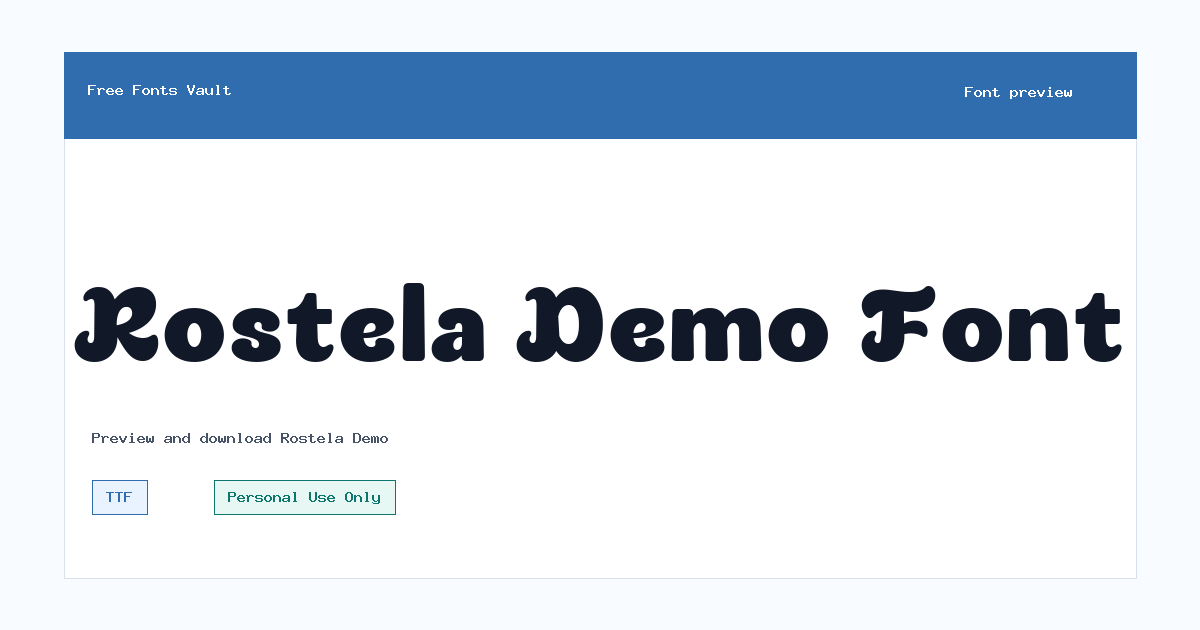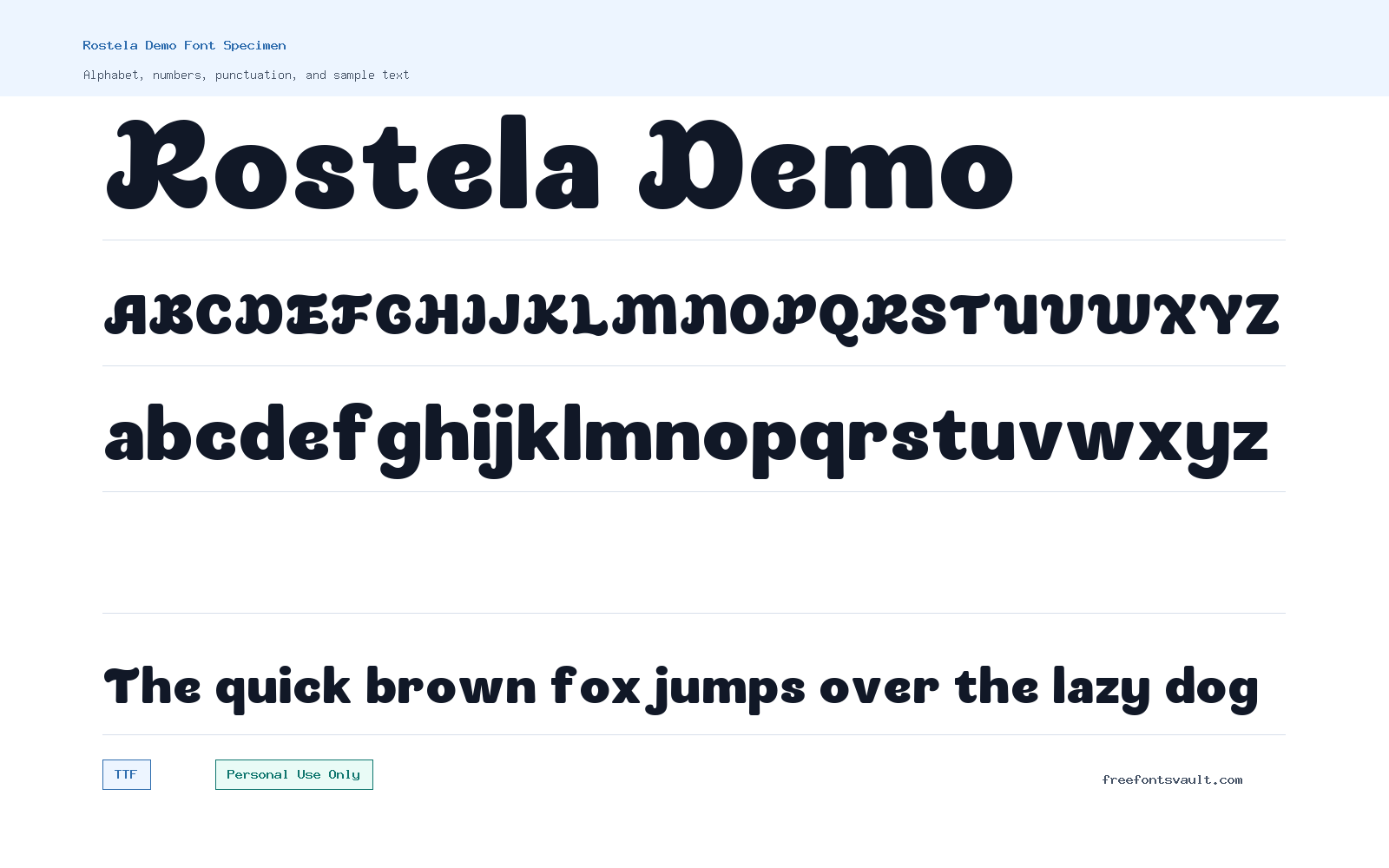
Rostela Demo
- Designer Ragamkata Studio
Rostela Demo font.
Rostela Demo is a display font with a decorative look suited to short, eye-catching text. It works best when you want a title, logo draft, poster heading, or branding mockup to feel more distinctive than a standard sans or serif.
About Rostela Demo
Rostela Demo is best treated as a headline and display typeface rather than an everyday reading font. The regular TTF file gives designers a simple way to test the typeface in design software, font preview tools, and mockup layouts. Because the available style is regular weight, the font is most useful when the letter shapes themselves carry the visual character. Use it for words that need to stand apart: a brand name, an event title, a packaging concept, a social graphic headline, or a short quote. It can also be useful for logo exploration, especially when you want to compare a decorative display face against cleaner supporting type.
For best results, start by typing the exact words you plan to use in the preview field. Display fonts can change character quickly depending on the word, letter spacing, capitalization, and line length. Test uppercase and lowercase combinations if your design needs both, and check how repeated letters, punctuation, and numbers look before building a full layout around it. Rostela Demo should be given room to breathe, so avoid crowding it into small buttons, dense paragraphs, or narrow mobile areas. In poster and web mockup work, pair it with a quiet sans serif or a readable serif so the display text remains the focus without making the whole design feel busy.
- Suitable for short text settings where the font’s decorative personality can be shown clearly.
- A practical option for logo drafts, poster titles, packaging concepts, and social media graphics.
- Works best at larger sizes where spacing, curves, and letter details are easier to read.
- Logo concepts and brand-name experiments
- Poster headlines and event title graphics
- Packaging mockups and label-style design tests
- Website hero headings and landing page mockups
- Social media quote cards, announcements, and promotional layouts
- Typography practice, mood boards, and personal portfolio experiments
Rostela Demo is credited to Ragamkata Studio. No foundry information or official designer URL is listed, so avoid adding extra origin, trademark, or release-history claims unless you verify them from the creator.
Use Rostela Demo where the text is short and intentional. Keep headlines brief, increase tracking if letters feel tight, and check readability at the final display size. For web mockups, use it sparingly in hero text or section titles rather than long body copy. For logo work, test the name in multiple sizes, black-and-white first, then with color. Pair it with a neutral sans serif for menus, captions, and paragraphs, or with a restrained serif if you want a more editorial contrast. If the design will be used commercially, resolve the license first before presenting it as a finished option.
Who designed Rostela Demo?
Rostela Demo is credited to Ragamkata Studio.
What is Rostela Demo best used for?
It is best used for short display text such as logos, posters, headings, packaging mockups, social graphics, and typography experiments.
Is Rostela Demo good for paragraphs?
It is better for display use than long reading. Use a more readable text font for paragraphs, menus, descriptions, and small interface text.
How should I pair Rostela Demo with other fonts?
Pair it with a simple sans serif or a clean serif. Let Rostela Demo handle the headline or logo text, then use the supporting font for body copy and smaller details.